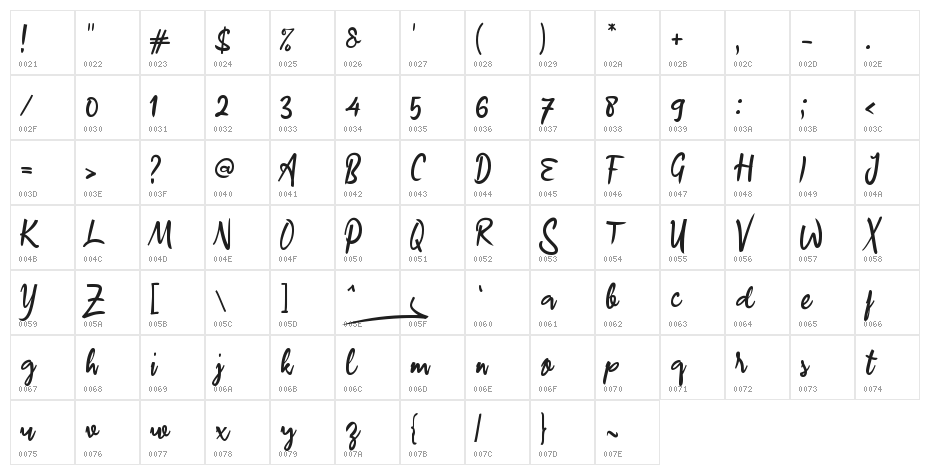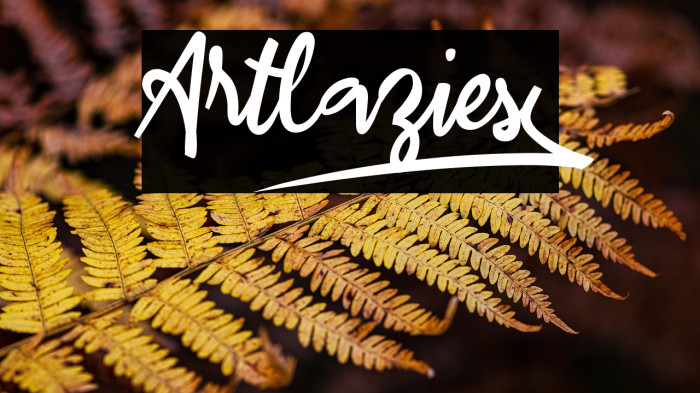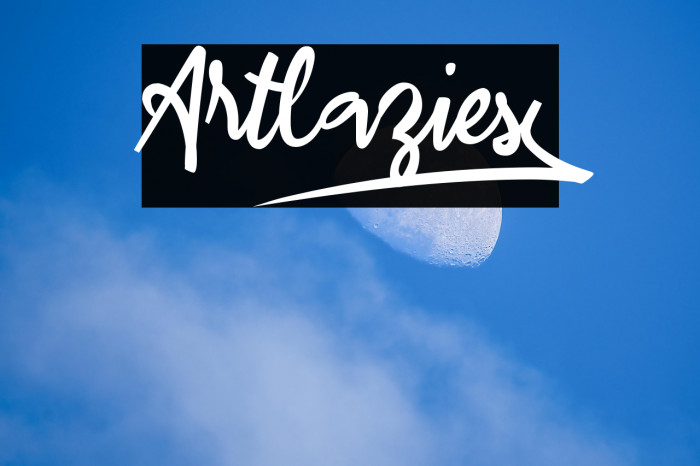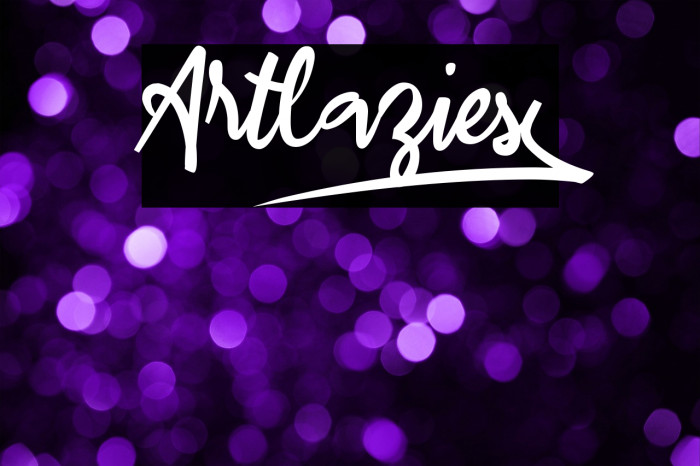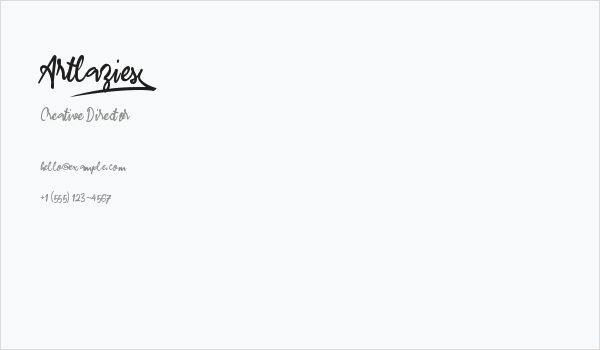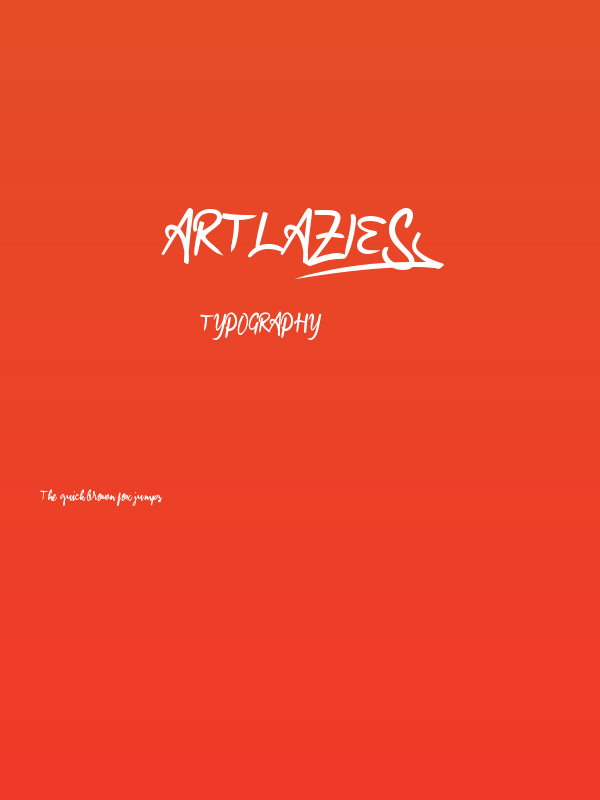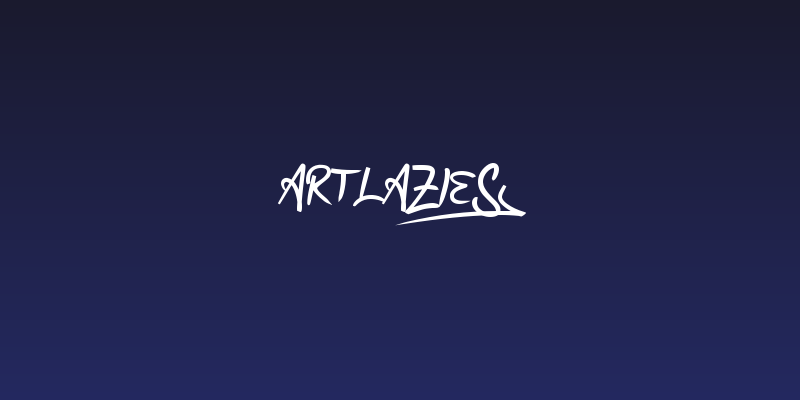
Artlazies_ Font
Artlazies_ Description
This font features a bold and expressive handwritten style, characterized by its fluid and dynamic strokes. The uppercase letters exhibit a strong presence with their slightly slanted and connected forms, while the lowercase letters maintain a consistent flow, adding a touch of elegance and personality. The numerals are clear and legible, complementing the overall aesthetic. Special characters are creatively integrated, enhancing the font's versatility. The design is perfect for projects that require a personal and artistic touch, such as invitations, branding, and creative posters.
| Proposed Projects | Ideal for invitations, branding, creative posters, and artistic projects. |